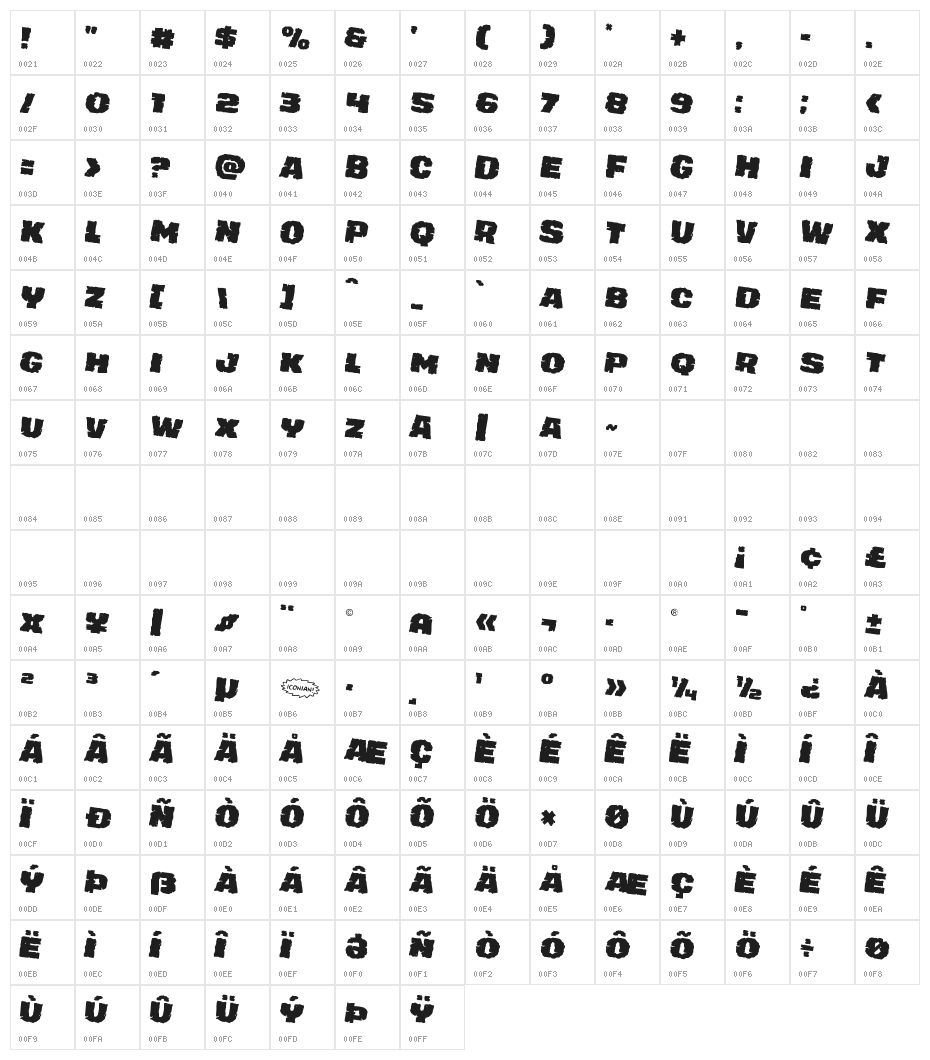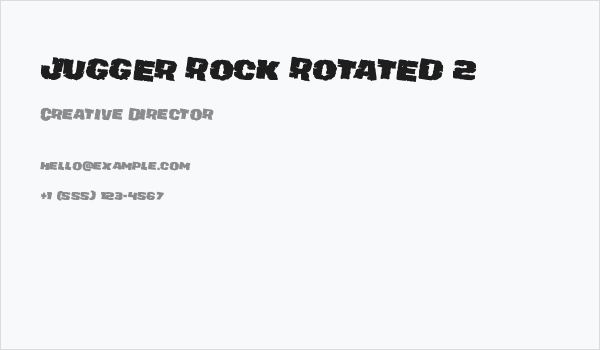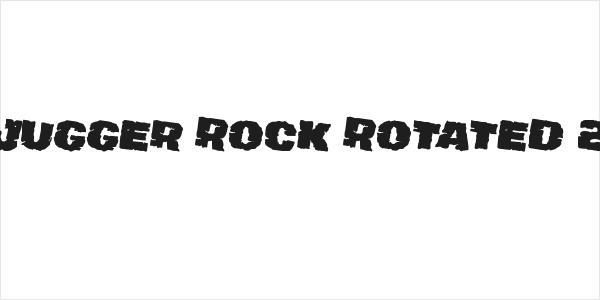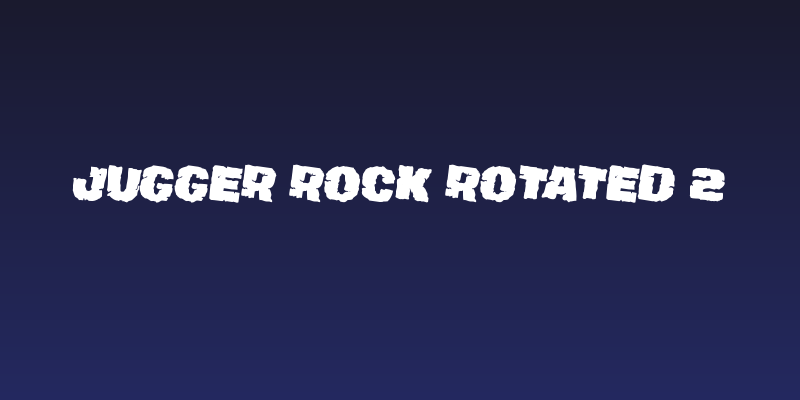
Jugger Rock Rotated 2 Font
Jugger Rock Rotated 2 Description
This font features a rugged, distressed style with a bold and impactful appearance. The characters are heavily textured, giving them a rough, rock-like aesthetic that suggests strength and durability. The uppercase and lowercase letters maintain a consistent weight, with jagged edges and irregular shapes that add to the font's dynamic and energetic feel. The numbers and special characters follow the same design principles, ensuring a cohesive look across all elements. This font is ideal for projects that require a bold statement and a touch of edginess.
| Proposed Projects | Perfect for music album covers, event posters, sports branding, and any design needing a strong, edgy look. |